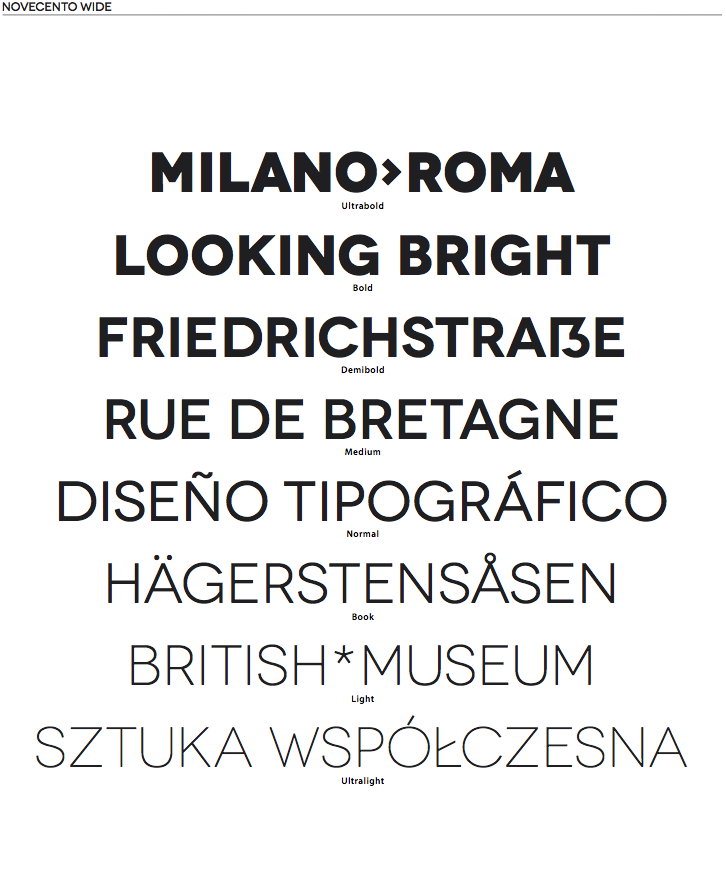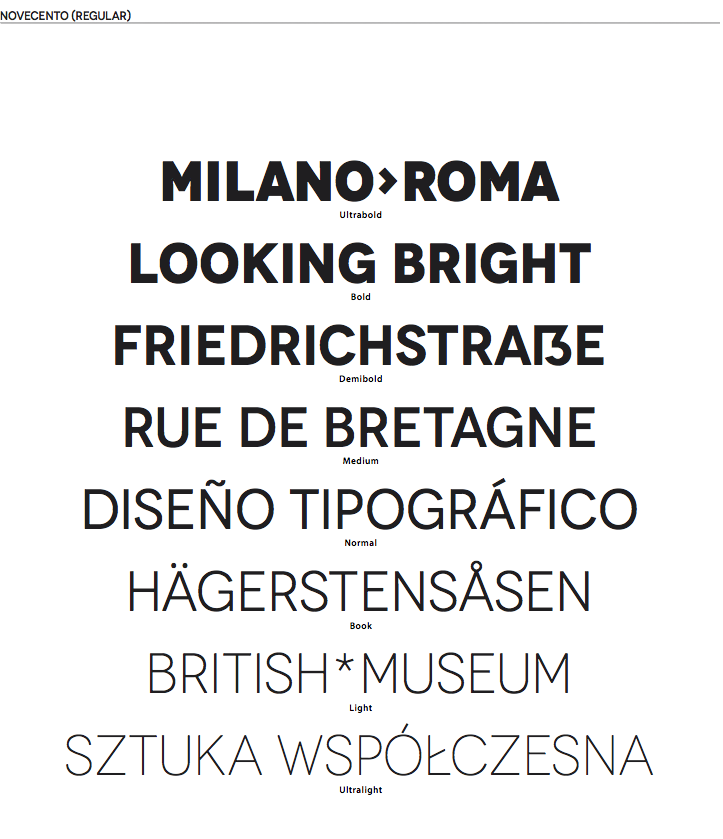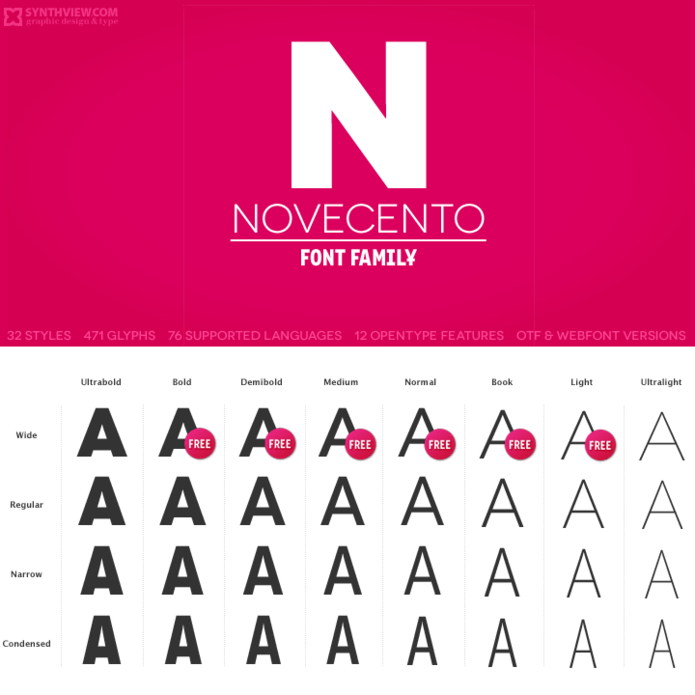
Novecento is an uppercase-only opentype font family of 32 styles, 471 glyphs, 12 Opentype features, diacritics for 76 Latin based languages, .otf and webfont versions.
This font family is inspired on European typographic tendencies between the second half of 19th century and first half of the 20th:
it looks rational and geometric; however, it is optically corrected and balanced.
This font face is designed to be used mostly for headlines, visual identities or short sentences, both in big and small sizes. Lighter faces provide a more contemporary and design look&feel, while the bolder ones definitely look retro.